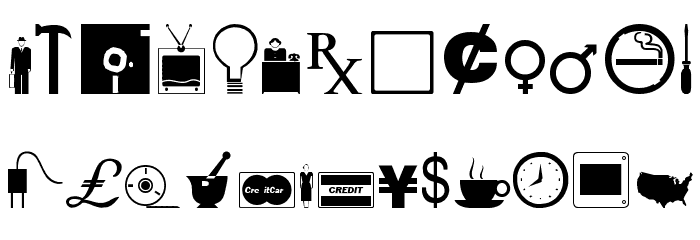
Business/Industrial Regular Font
Business/Industrial Regular Description
A collection of business and industrial-themed icons, including symbols for finance, communication, and tools.
Icon set with business and industrial themes from Images & Symbols fonts.
- Proposed Projects: Infographics, presentations, business cards.
- Use Case: Icons, branding, signage.